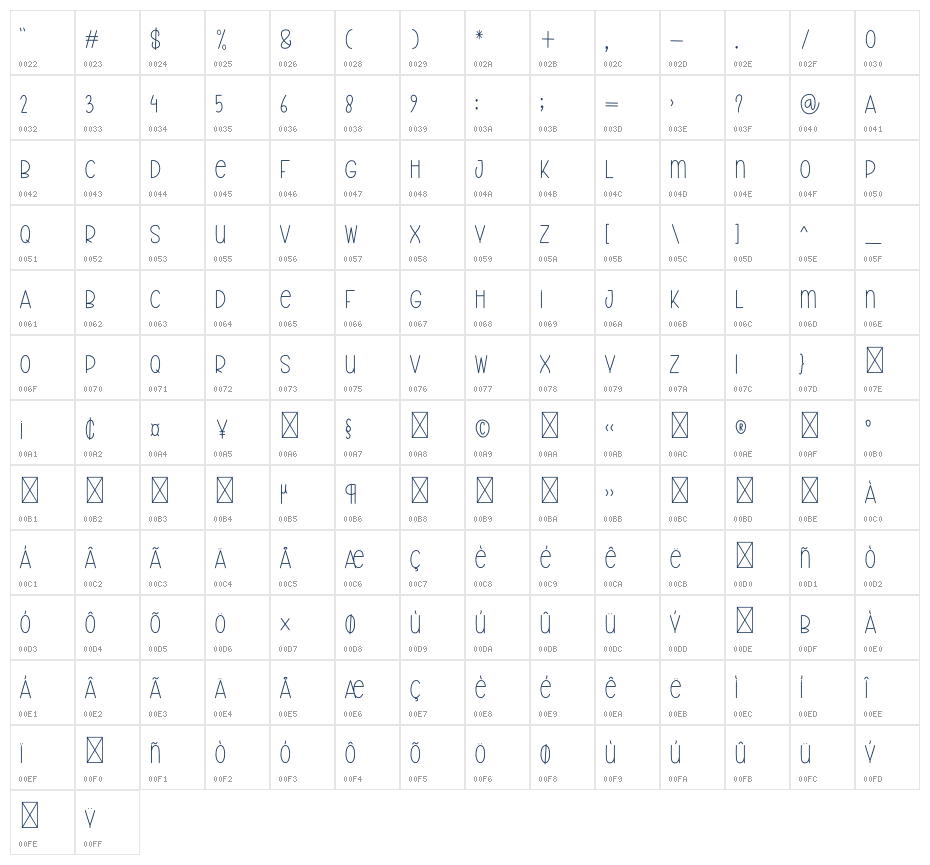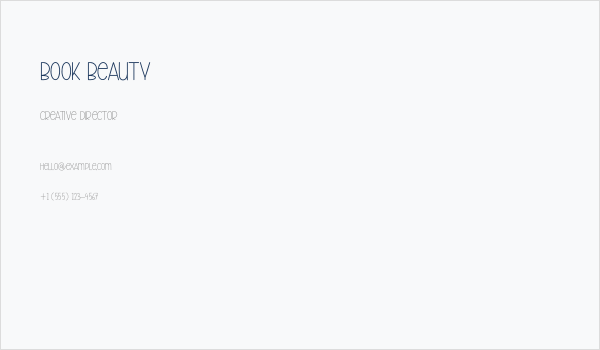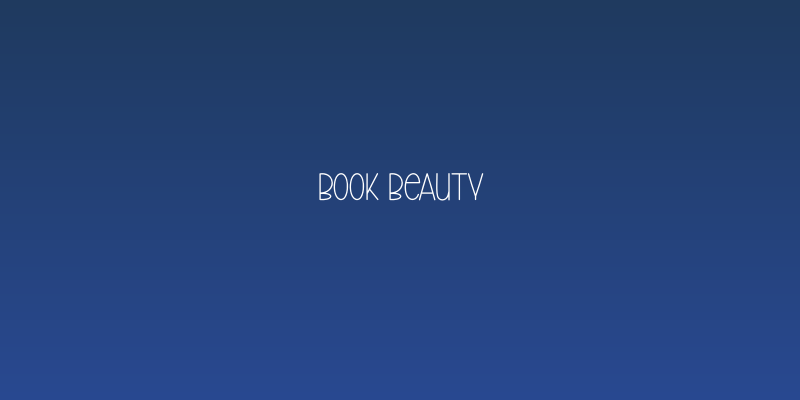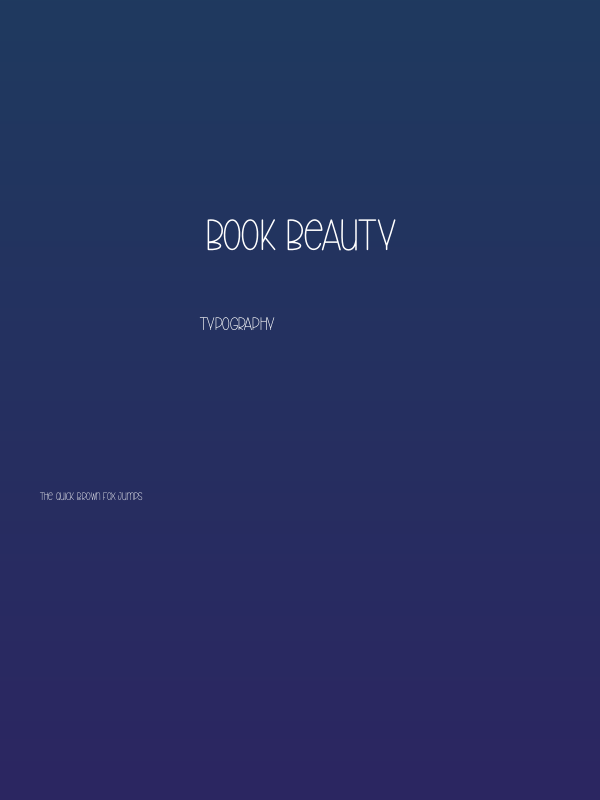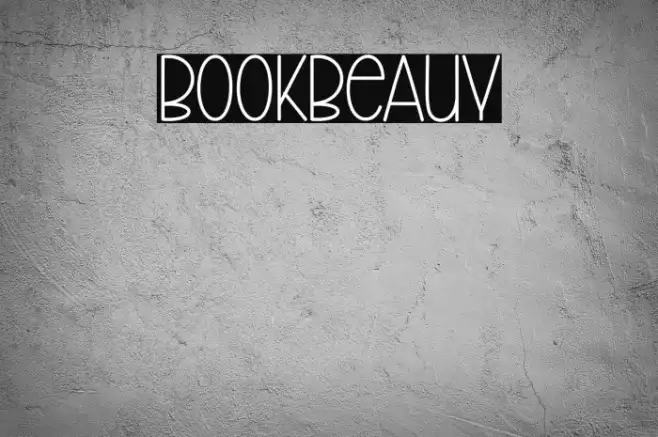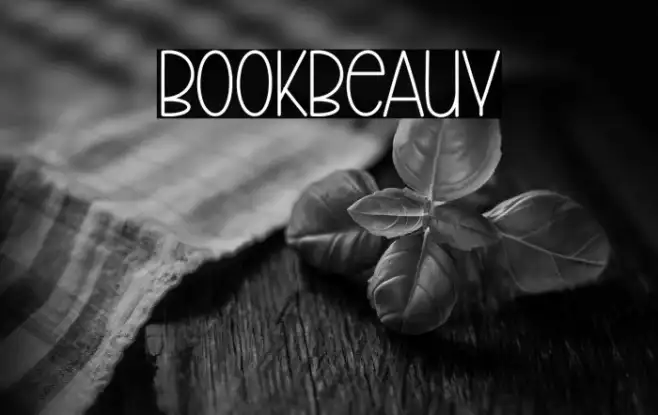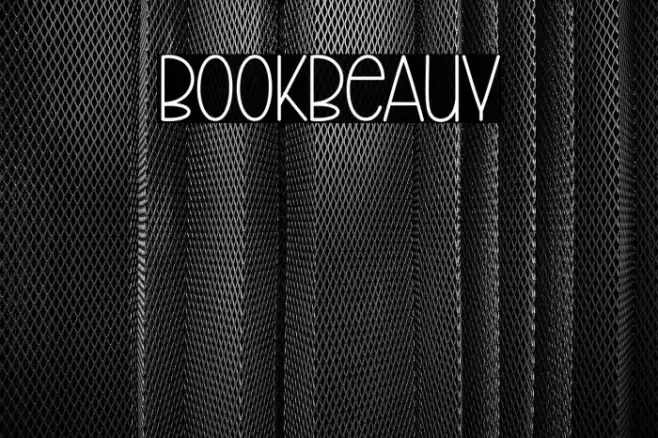
Book Beauty Font
Book Beauty Description
A thin, tall, and elegant sans-serif font with a handwritten, casual style.
| Overall Style | Casual, Handwritten |
| Use Case | Headlines, Invitations, Branding, Creative projects |